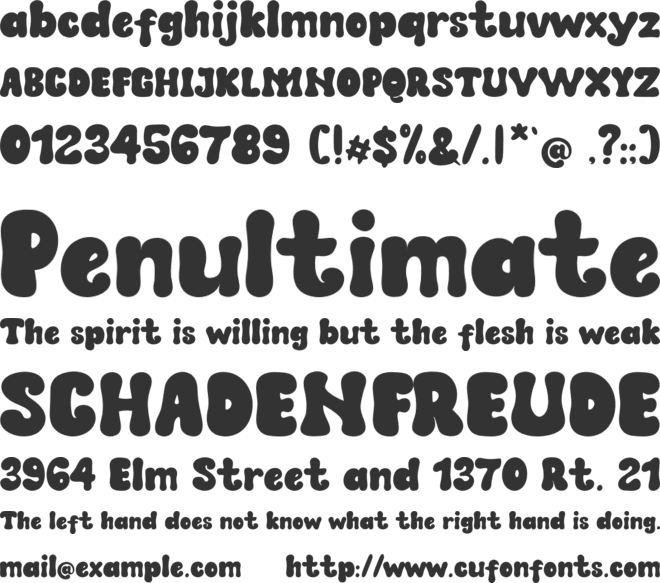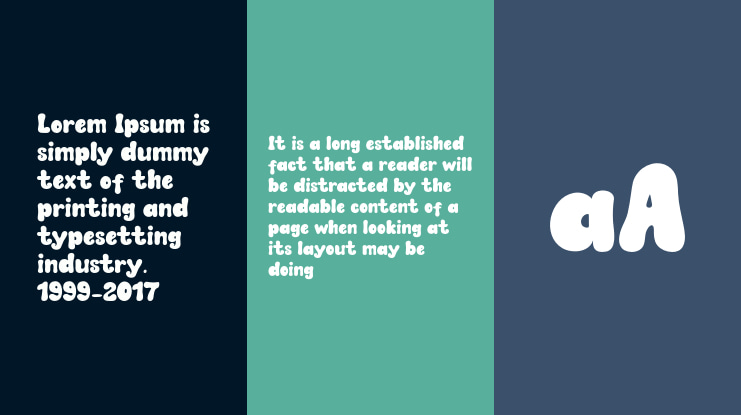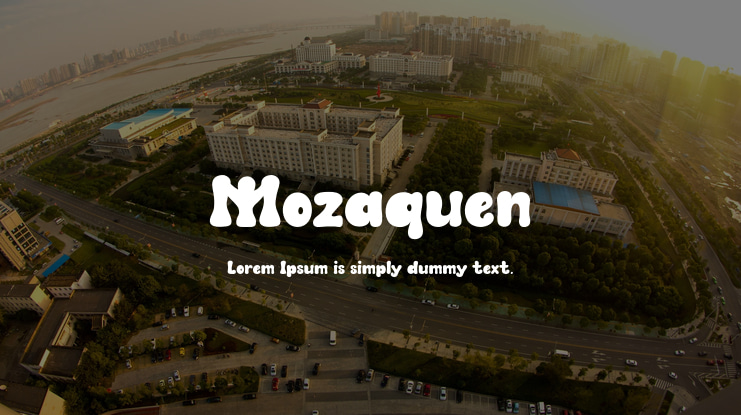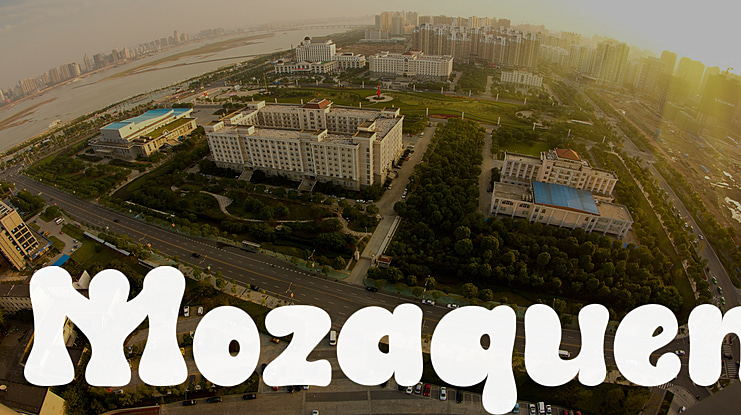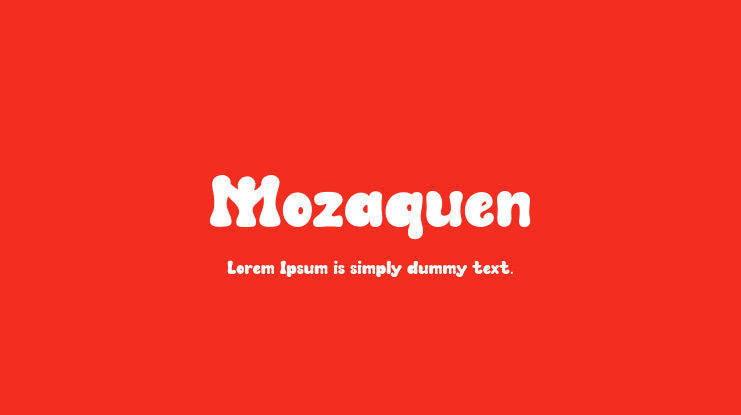
Mozaquen Font
Introducing Mozaquen is a cute font with a modern style and made in a way that follows current trends, a quirky font perfect for all of your craft projects!